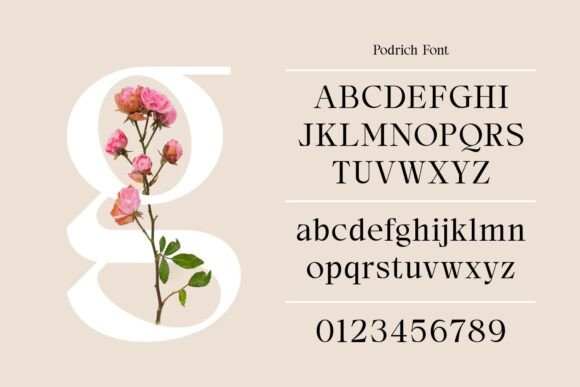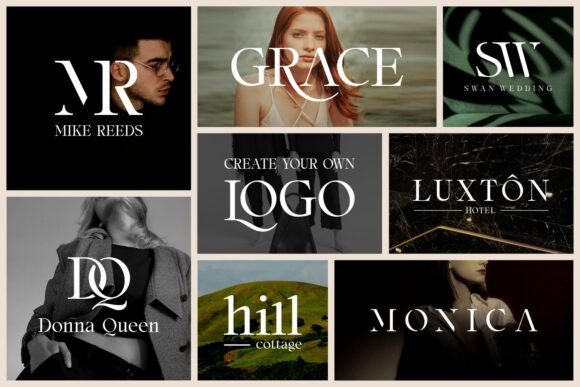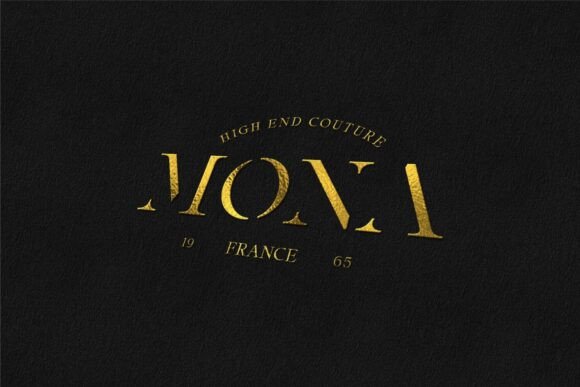
Introduction to Podrich Font
Have you ever stared at a blank canvas, desperately searching for the perfect font to elevate your design? It’s a feeling every creative has experienced at some point. For me, that moment came when I was working on a high-end branding project and needed a font that exuded sophistication and luxury. That’s when I discovered the Podrich Font – a game-changer in the world of typography.
This elegant serif font is more than just a pretty face; it’s a design resource that offers a wealth of possibilities for creative projects. With its significant contrast between thick and thin strokes, Podrich Font ensures legibility and a luxurious look that’s perfect for logos, posters, fashion, and premium branding. And with its abundance of alternates and ligatures, you can customize your design to perfection.
Whether you’re working on a project with a transparent background or need a font that conveys quality and heritage, Podrich Font is an invaluable asset for designers. And the best part? It’s available for free download, making it an accessible high-quality design resource for creatives of all levels.
Key Features of Podrich Font
- High-quality design resource for creative projects: Podrich Font is a versatile and modern font that can be used for various design purposes, from logos to typography.
- Unique characteristics: Podrich Font features a unique blend of modern and minimalist design elements, making it an excellent choice for designers who want to add a touch of sophistication to their creative projects.
- Easy to use: Podrich Font is designed to be easy to use, with a clean and intuitive design that makes it simple to incorporate into any design project.
Honest Review: Podrich Font
As a designer, I’m always on the lookout for high-quality design resources to elevate my creative projects. The Podrich Font caught my attention, and I’m excited to share my honest review.
- ✨ Beautiful, elegant design with a unique flair that sets it apart from other fonts.
- ✨ Excellent legibility, making it perfect for body text and headings alike.
However, there are some limitations:
- ⚠️ Limited font sizes available, which may not be suitable for large-scale designs.
- ⚠️ Not ideal for designs that require a transparent background, as the font’s texture may show through.
Overall, I’m impressed with the Podrich Font’s design quality and versatility. While it may have some limitations, it’s still a valuable resource for designers looking for a unique and elegant font for their creative projects.